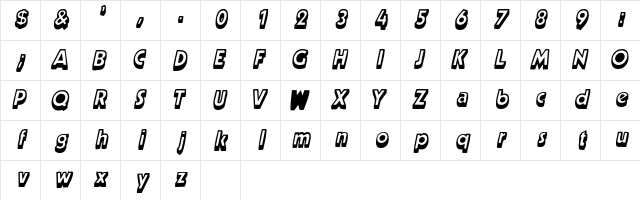
BeurketShadowSSK is built around its visual character rather than neutral utility - its distinctive forms are designed to make an impression at display sizes. The slanted form adds forward momentum and visual energy. Its bold stroke weight gives it real presence on the page.
Font Pairing: Pair with a clean neutral sans-serif for body copy to let BeurketShadowSSK's character lead without overwhelming the composition.
Pro Tip: Use BeurketShadowSSK exclusively at display sizes - it was designed to be seen, not read at length. Let a neutral companion handle body copy.